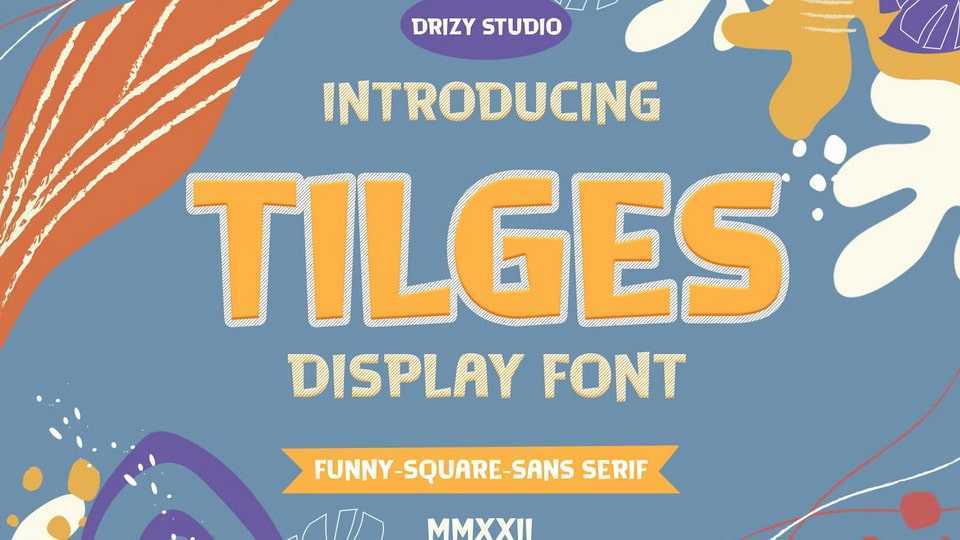
Download Tilges font, a funny square display typeface. Offers all the basic funny styles you will need for a successful project.
Designer: Drizy Studio